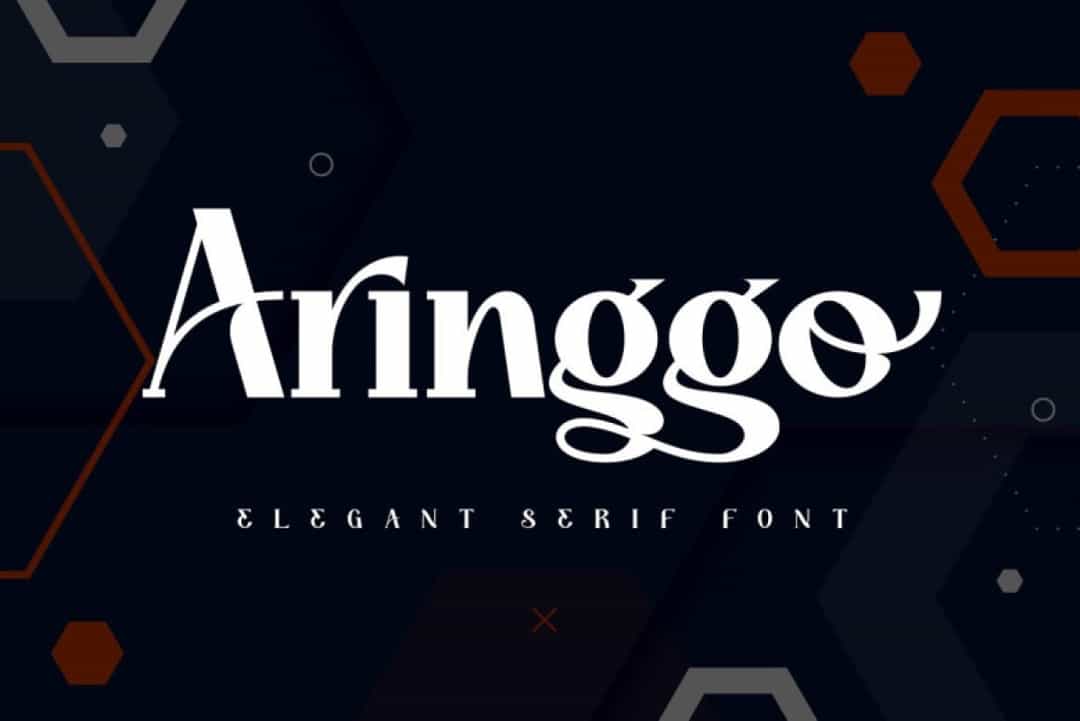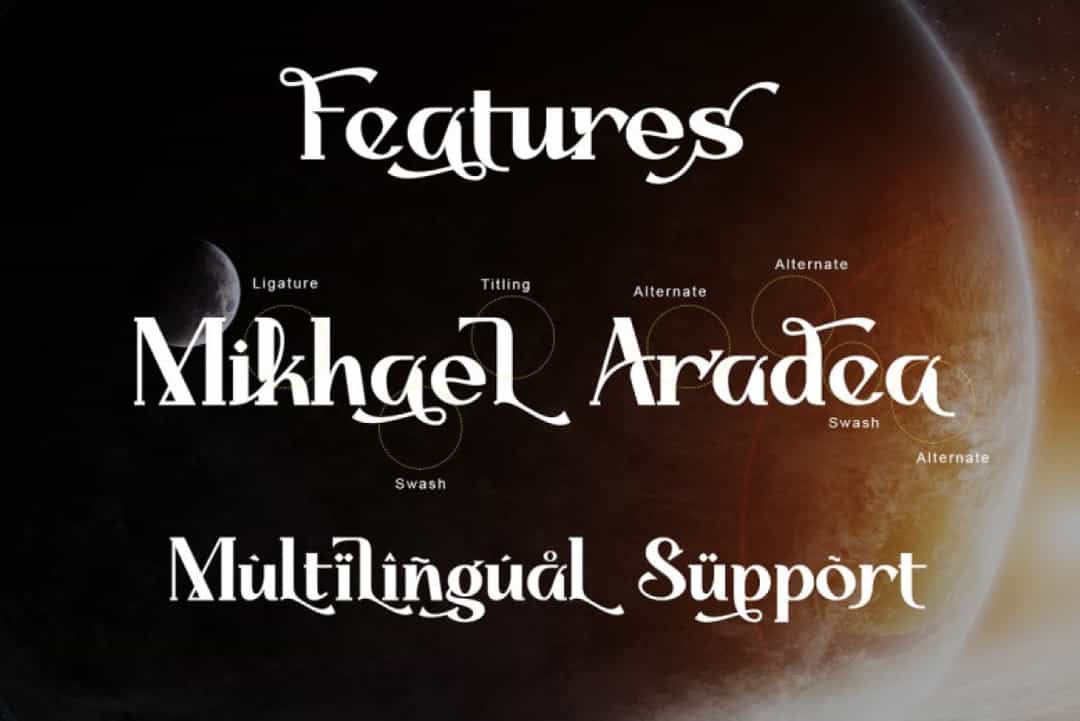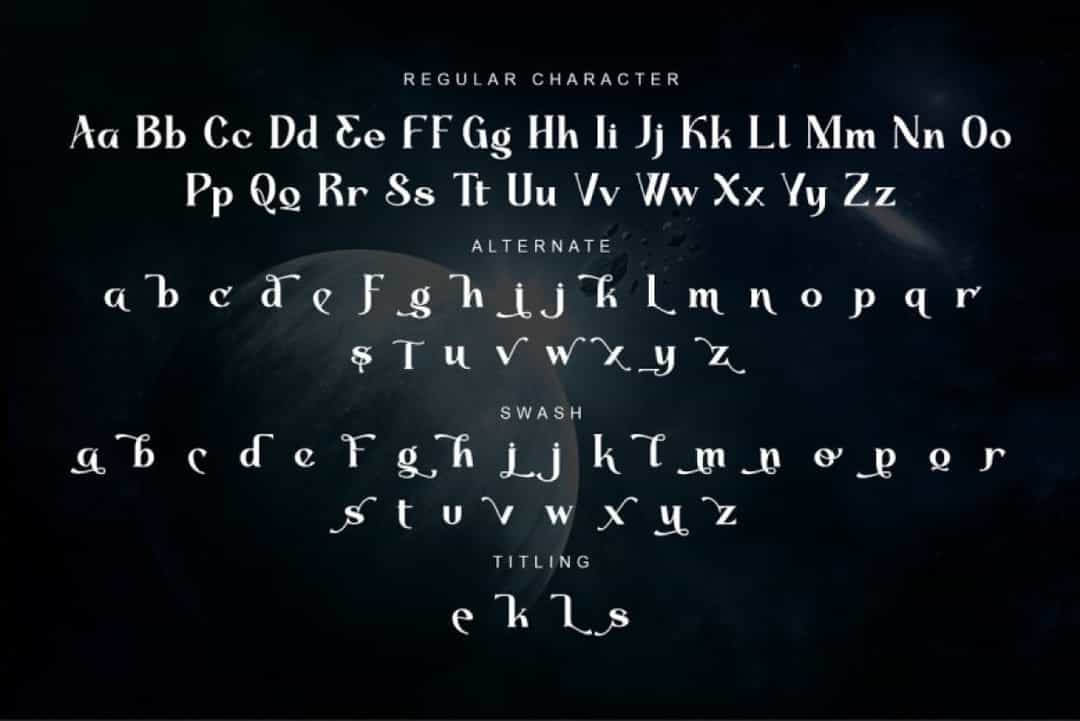
Aringgo is an elegant and stylish serif font. With its simple design and clean appearance, Aringgo fits seamlessly into many styles due to its versatility. Additionally, this font comes equipped with multiple alternate ligatures so that you can mix them together to craft the ideal typographic style.